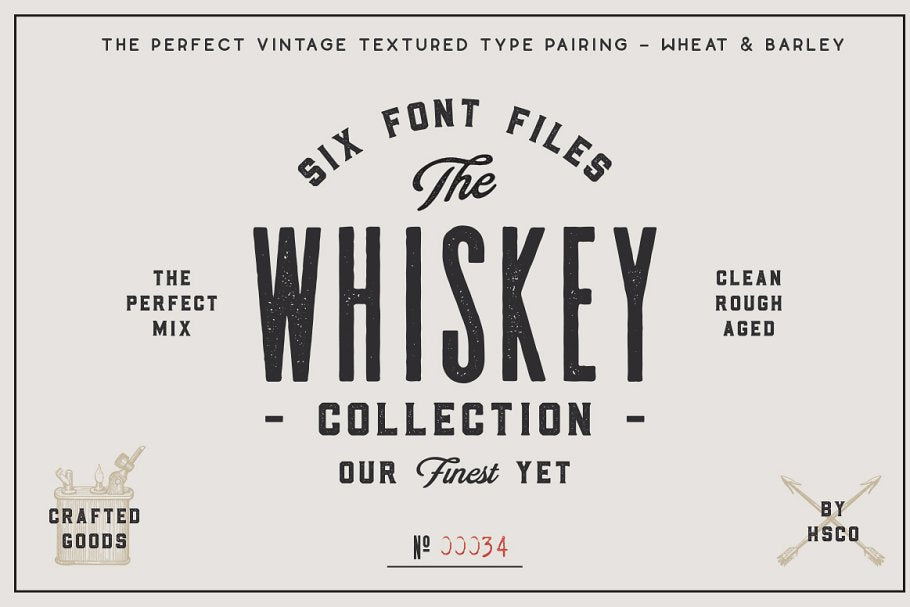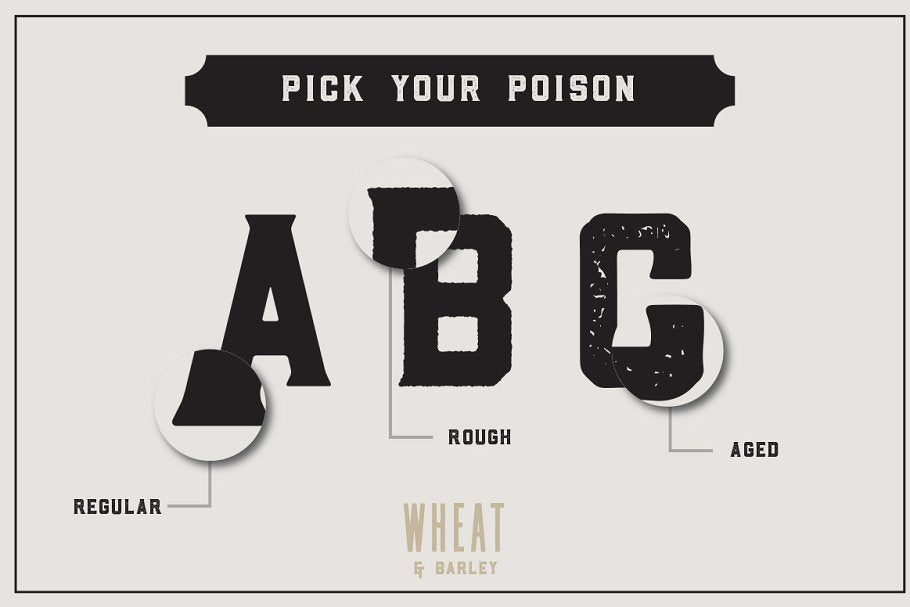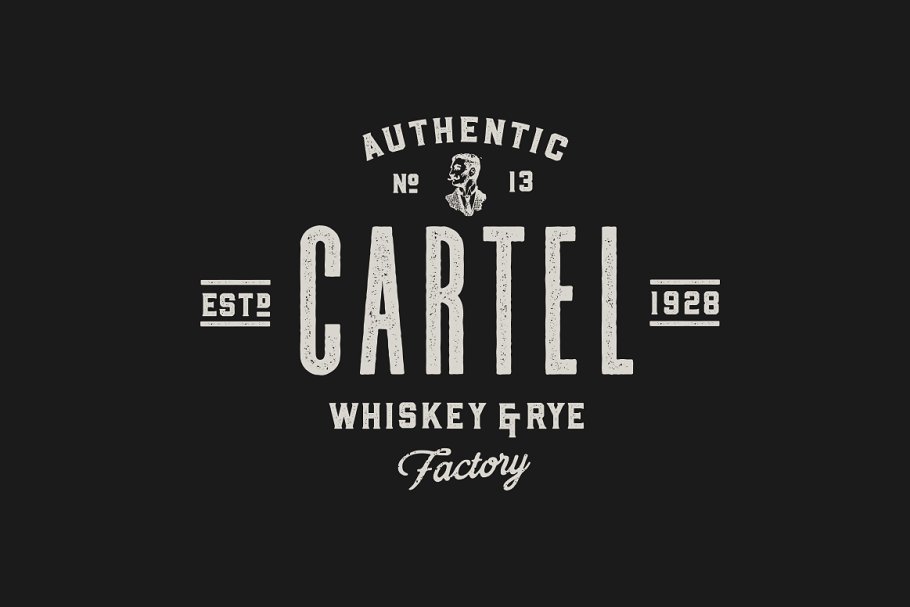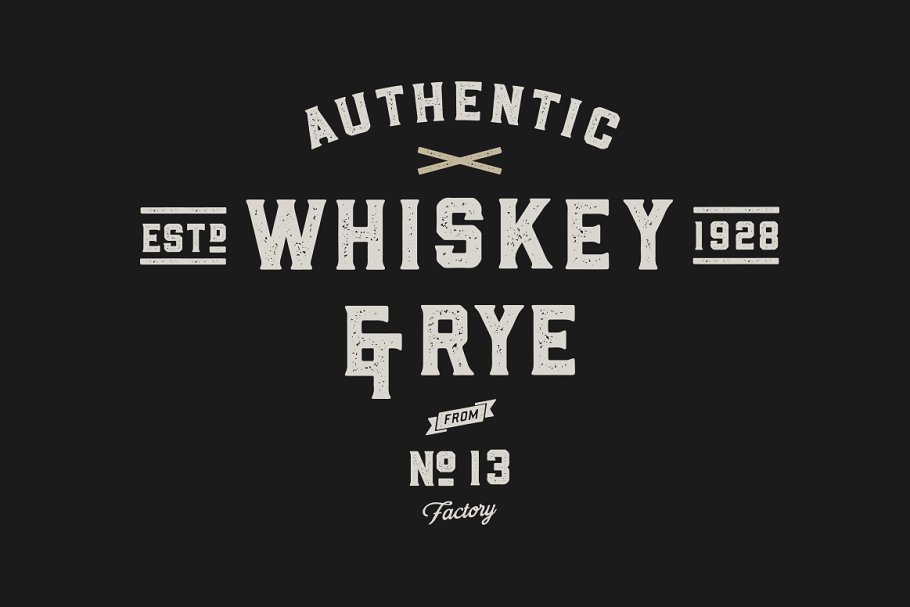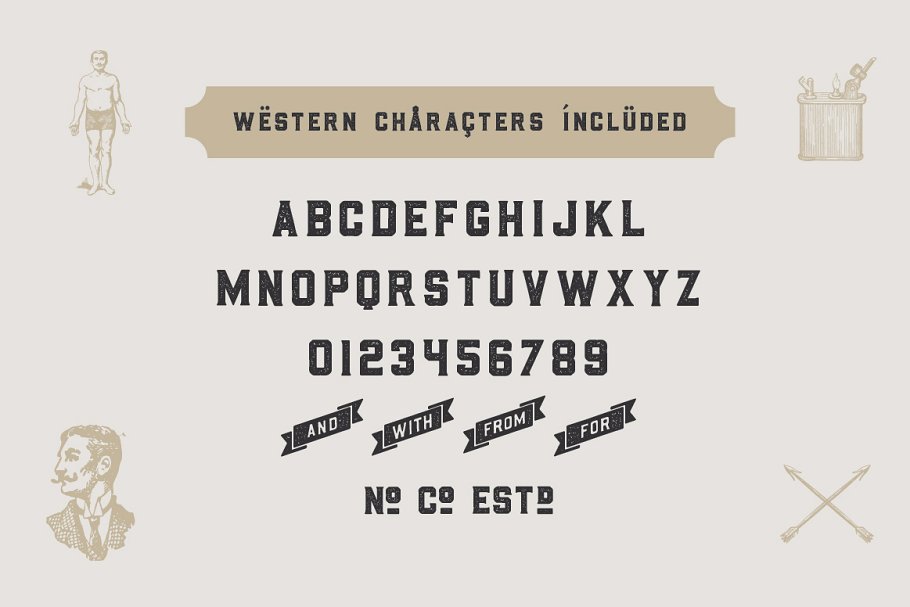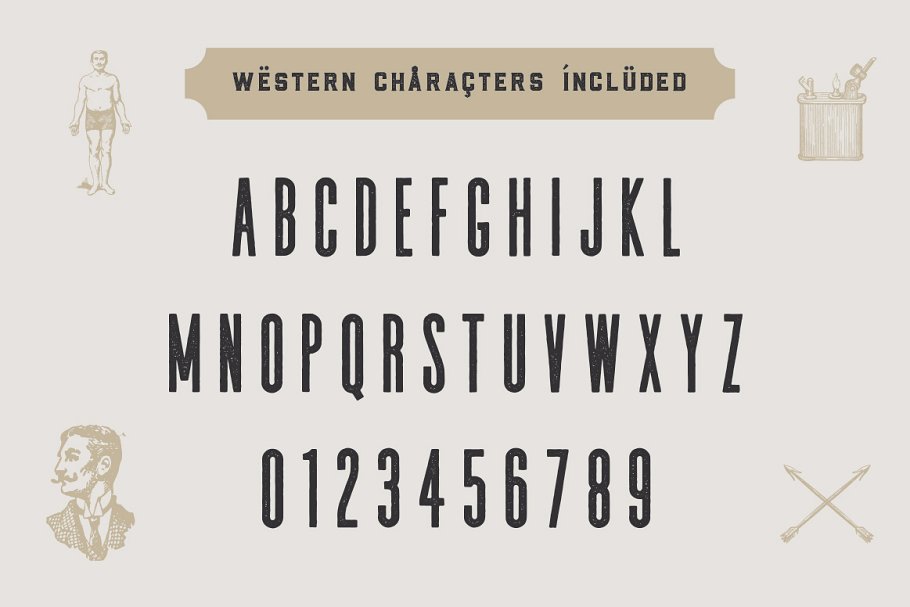
Whiskey Font Collection
The Whiskey Font Collection
The Whiskey Font Collection is a type pairing of "Wheat" & "Barley". These two typefaces were literally made for eachother. They work together to give you that perfect vintage label you've been designing. These are perfect for Logos, Advertising, Apparel Design, Labels, Signage, Etc.
The 2 Typefaces come in 3 different styles; Regular, Rough, Aged (Distressed Letterpress Look). Wheat & Barley come with Western European characters. Barley also has a few added extras such as "and", "from", "for" and "with" inside of ribbons, alongside No., Co., & ESTd.